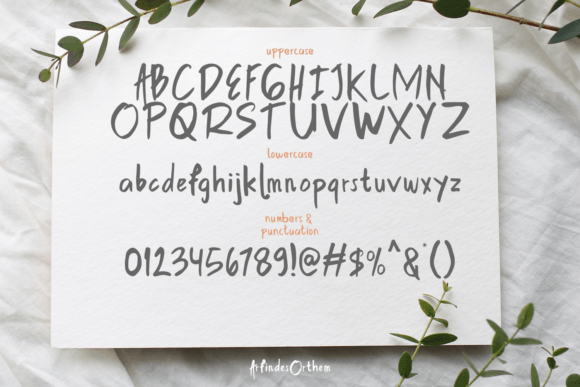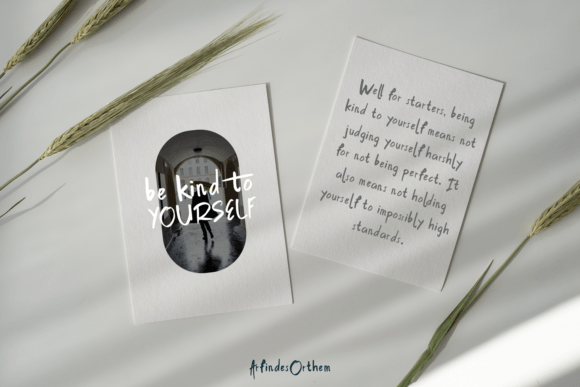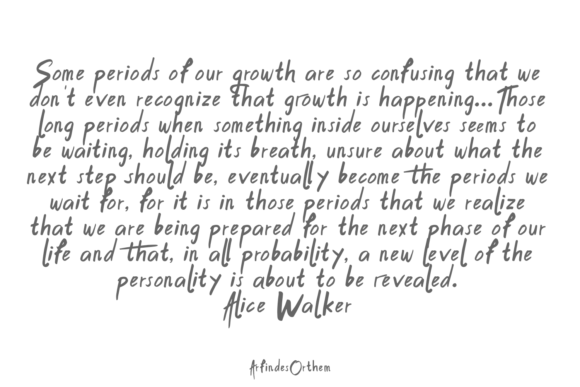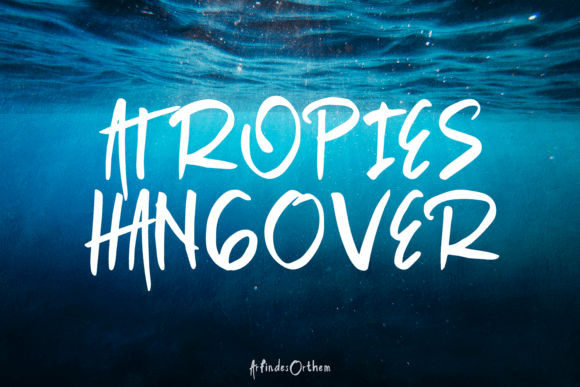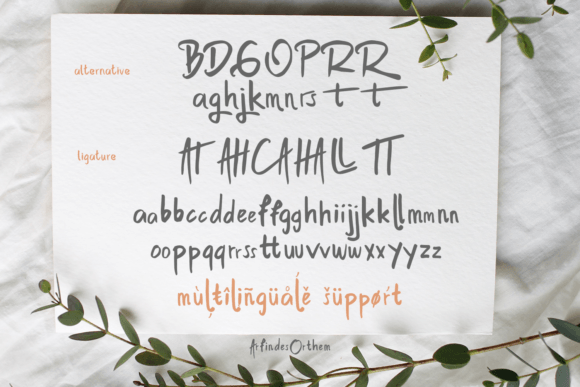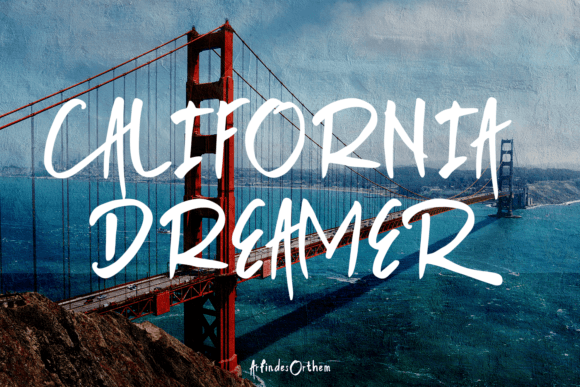
Discover the Unique Charm of Arfindes Orthem Font
Are you tired of using the same old fonts in your designs? Look no further than Arfindes Orthem, a cool and quirky brush handwritten font that’s sure to add a touch of personality to your creations. With its unique blend of elegance and playfulness, Arfindes Orthem is a wonderful asset to any font library, and has the potential to enhance any project.
What Makes Arfindes Orthem So Special?
Arfindes Orthem is a brush handwritten font that exudes a sense of creativity and fun. Its quirky and irregular strokes give it a charming, hand-crafted feel that’s perfect for designs that need a bit of personality. Whether you’re working on a logo, a poster, or a social media graphic, Arfindes Orthem is sure to make your design stand out from the crowd.
Key Features of Arfindes Orthem Font
- Unique Brush Strokes: Arfindes Orthem features distinctive brush strokes that give it a hand-crafted feel.
- Quirky and Playful: This font is perfect for designs that need a bit of personality and whimsy.
- Elegant and Sophisticated: Despite its playful nature, Arfindes Orthem still has an elegant and sophisticated feel that’s perfect for a wide range of designs.
- Highly Versatile: Whether you’re working on a logo, a poster, or a social media graphic, Arfindes Orthem is a versatile font that can be used in a variety of contexts.
How to Use Arfindes Orthem in Your Designs
Arfindes Orthem is a highly versatile font that can be used in a wide range of designs. Here are a few ideas to get you started:
- Logos and Branding: Arfindes Orthem is a great choice for logos and branding materials, especially for businesses that want to convey a sense of creativity and playfulness.
- Posters and Flyers: This font is perfect for posters and flyers that need to grab attention and make a statement.
- Social Media Graphics: Arfindes Orthem is a great choice for social media graphics, especially for businesses that want to add a bit of personality to their online presence.
- Invitations and Stationery: This font is also perfect for invitations and stationery, especially for events and occasions that require a bit of elegance and sophistication.
Why Designers and Crafters Love Arfindes Orthem
Designers and crafters love Arfindes Orthem for its unique blend of elegance and playfulness. This font is perfect for anyone who wants to add a bit of personality to their designs, without sacrificing sophistication and elegance. Whether you’re working on a personal project or a client’s design brief, Arfindes Orthem is a great choice for anyone who wants to create something truly special.
Tips for Getting the Most Out of Arfindes Orthem
- Experiment with Different Sizes: Arfindes Orthem looks great in a variety of sizes, so don’t be afraid to experiment and find the perfect size for your design.
- Pair it with Other Fonts: This font pairs well with a variety of other fonts, so don’t be afraid to get creative and try out different combinations.
- Use it in Combination with Images: Arfindes Orthem looks great in combination with images, so consider using it to add text to your favorite photos or illustrations.
Arfindes Orthem is a unique and versatile font that’s perfect for designers and crafters who want to add a bit of personality to their creations. With its quirky and irregular strokes, elegant and sophisticated feel, and highly versatile nature, Arfindes Orthem is a wonderful asset to any font library. Whether you’re working on a logo, a poster, or a social media graphic, Arfindes Orthem is sure to make your design stand out from the crowd.